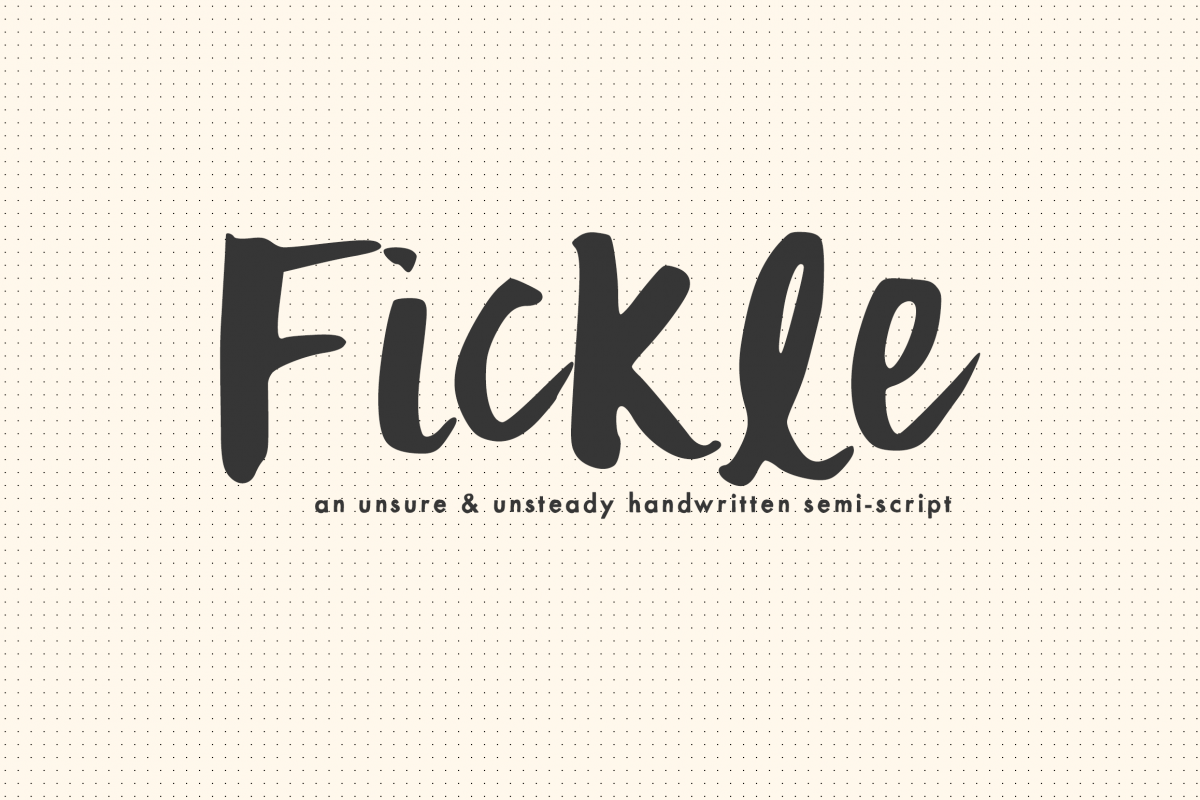
Fickle - an unsure & unsteady handwritten semi-script
Mix Fickle
MIX FICKLE, is an unsure & unsteady handwritten semi-script. This typeface is perfect for creating a roughly scribbled look.